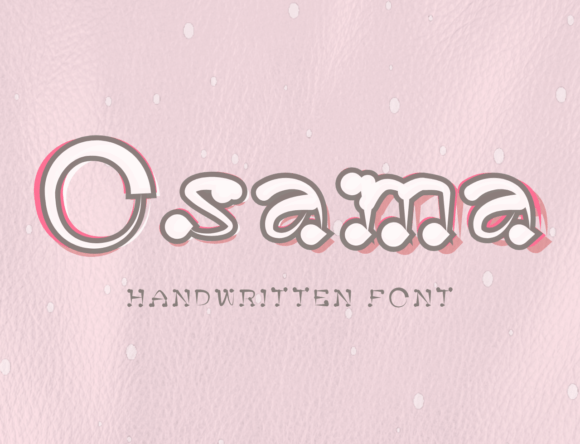
Introducing Osama Font, the ultimate choice for all your packaging design needs. Created by the talented Pukka De, this script font is the epitome of uniqueness and intrigue. With its captivating handwritten style, Osama Font adds a touch of quirkiness to any project, making it stand out from the crowd.
When it comes to packaging design, choosing the right font is crucial. It sets the tone, conveys the brand's personality, and captures the attention of potential customers. Osama Font excels in all these aspects and more. Its versatility knows no bounds, as it seamlessly adapts to various contexts, ensuring a dynamic and engaging visual experience.
Imagine your product packaging adorned with the mesmerizing curves and strokes of Osama Font. Each letter exudes personality and charm, creating an emotional connection with your target audience. Whether it's a luxurious perfume, a trendy fashion item, or a delectable gourmet treat, this font elevates the entire packaging design, making it irresistible to customers.
With Osama Font, you can evoke a sense of elegance, sophistication, and creativity effortlessly. Its handcrafted nature adds a human touch, making it relatable and approachable. Every word written in Osama Font tells a story, inviting customers to indulge in the product's allure and unique qualities.
Let your packaging design speak volumes about your brand and leave a lasting impression on consumers. Osama Font brings life to your words, transforming them into captivating visuals. Its ability to elicit emotions and spark curiosity makes it a must-have for any e-commerce business looking to make a statement.
Incorporating Osama Font into your packaging design arsenal opens up a world of possibilities. From bold headlines to delicate details, this font adapts flawlessly, enhancing the overall aesthetic appeal. Say goodbye to mundane and predictable fonts, and embrace the creative power of Osama Font.
Unleash your imagination and captivate your audience with Osama Font. Its keyword-rich composition ensures visibility in search results, making it the best font for packaging design. Stand out, inspire, and entice customers with the allure of this unique handwritten font.